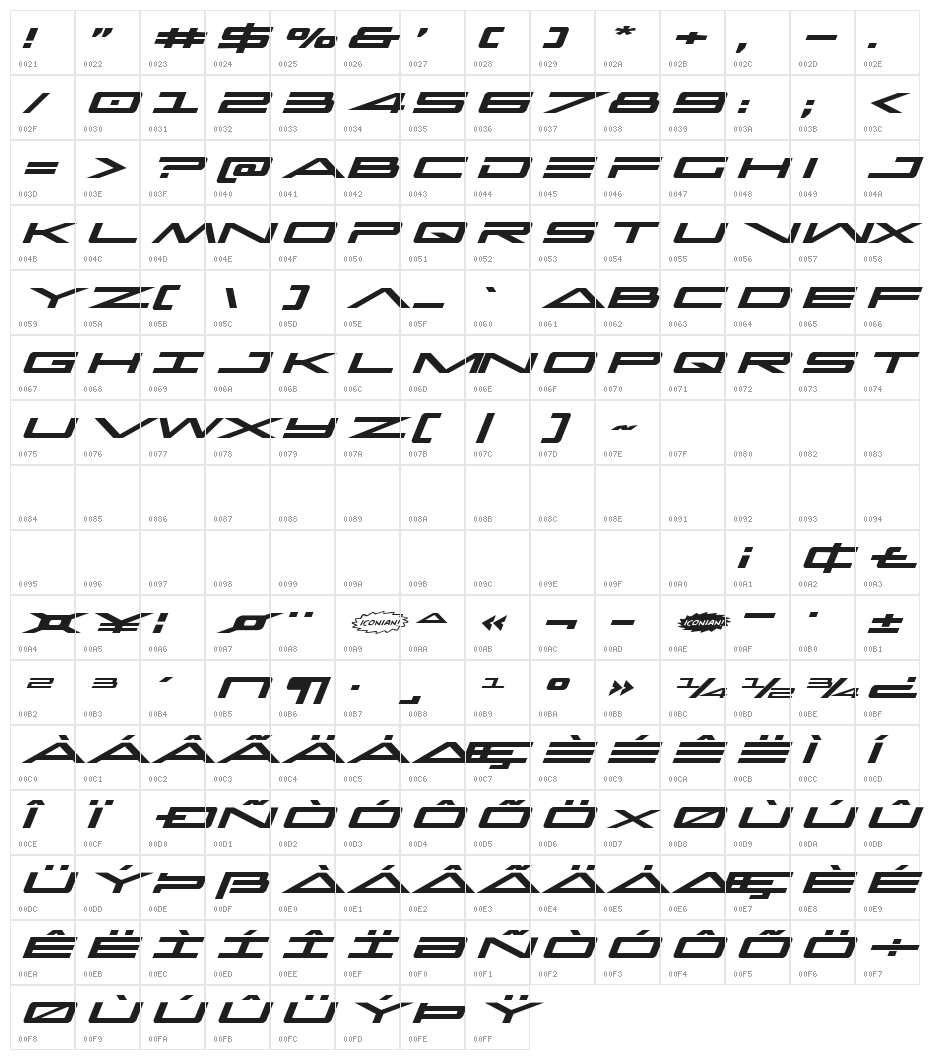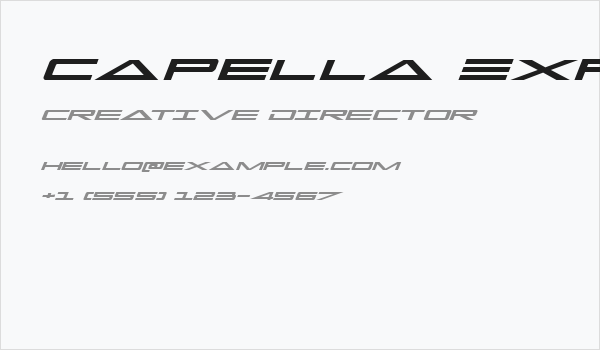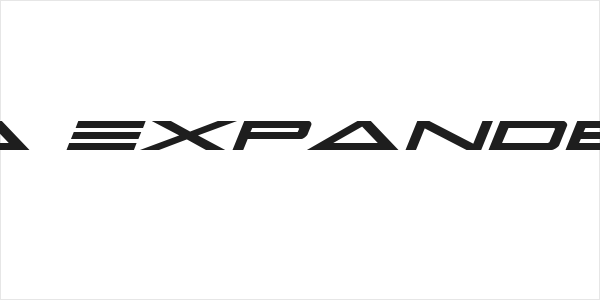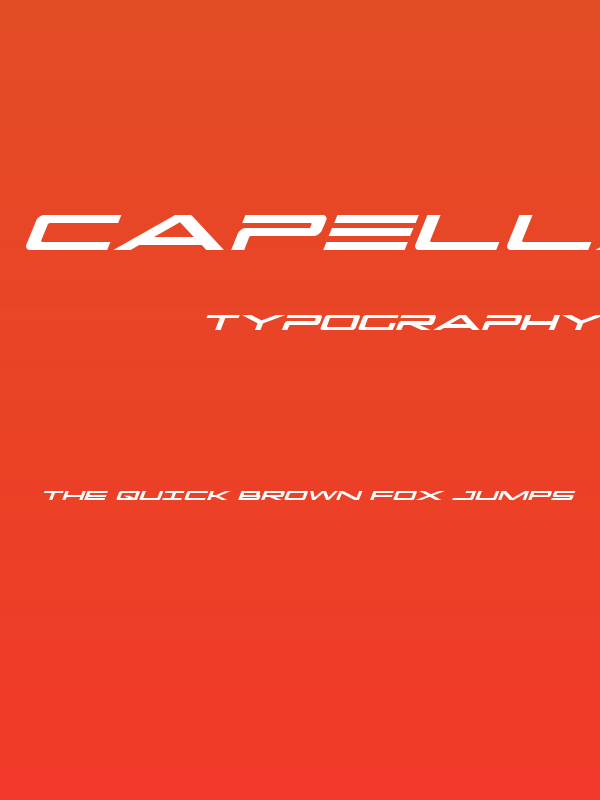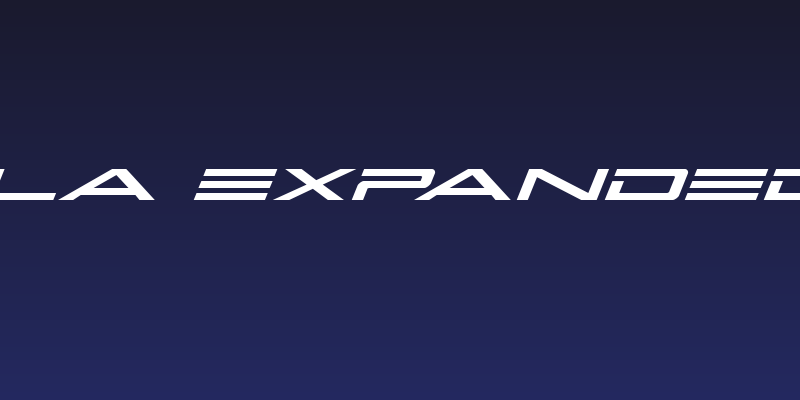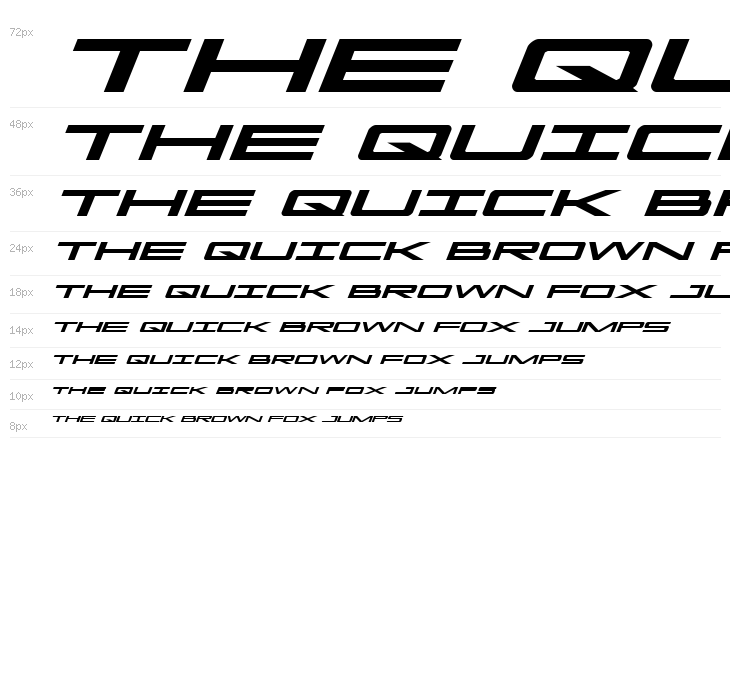
Capella Expanded Italic Font
Capella Expanded Italic Description
This font features a sleek, futuristic design with an expanded width and italicized style. The characters are sharply angled, giving a sense of motion and speed. The strokes are consistent in thickness, providing a uniform appearance across all letters and numbers. The font includes uppercase and lowercase letters, numerals, and a variety of special characters. Its geometric shapes and clean lines make it suitable for modern and tech-oriented designs. The expanded width allows for greater readability, while the italic slant adds a dynamic touch.
| Proposed Projects | Ideal for tech branding, futuristic posters, video game titles, and sci-fi themed projects. |